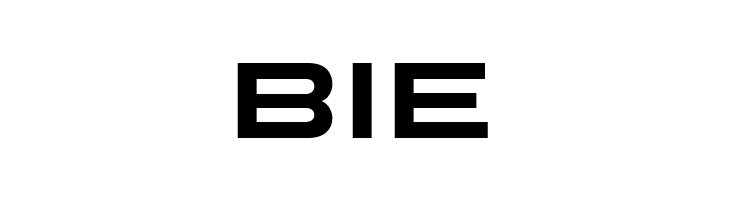
Walter Turncoat Font
A playful, handwritten font with a casual and informal style.
Turnpike Font
A bold, modern font with clean lines and a geometric structure.
Turn W Bold Font
A bold serif typeface with strong strokes and classic elegance.
The Aeroplane Flies High Heavy Font
A bold, dynamic font with sharp angles and a sense of motion.
Lucky Turns Font
A bold, expressive handwritten font with brush-like strokes and dynamic flow.
FATTIP Font
A bold, brush-style font with an energetic, hand-drawn look.
TurnTableOT Font
A bold, outlined font with a modern and playful style.
Turn W Bold Italic Font
A bold and italicized font with a dynamic and elegant style.
Turn Table Font
A modern, outlined font with rounded edges and consistent spacing.
Turn Table BV Font
A bold, rounded outline font with a modern and playful style.
Turn W Font
A classic serif font with medium contrast and elegant design.
Turn W Italic Font
An elegant serif font with a classic italic style and refined serifs.
KG Turning Tables Font
A bold, handwritten font with a playful and informal style.
Turnaround Italic Font
A bold, italic font with a dynamic and modern style.
Dotted Newspaper Font
A playful, dotted font with a vintage newspaper texture and handcrafted feel.
RiordonFancy Font
A whimsical and decorative font with playful flourishes and artistic details.
Turntablz BB Font
A bold, graffiti-inspired font with a playful, hand-drawn style.
Super Turnips Font
A playful, bold font with rounded, smooth strokes and a dynamic slant.
Turntablz BB Bold Font
A bold, graffiti-inspired font with a playful and dynamic style.
Turnaround Font